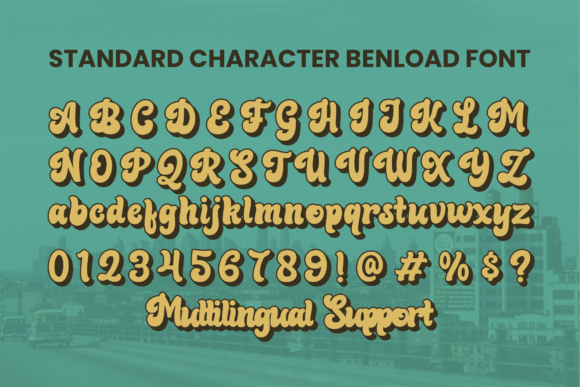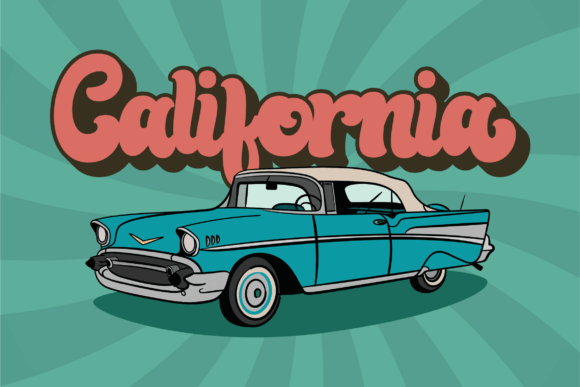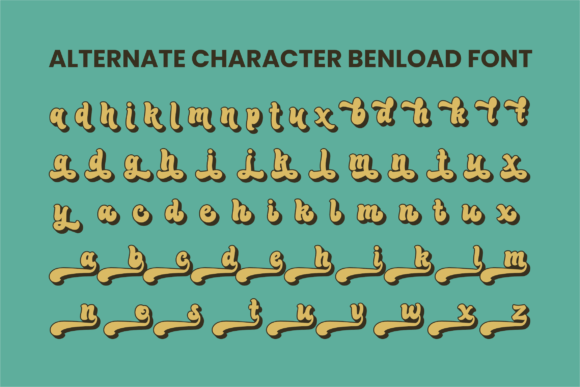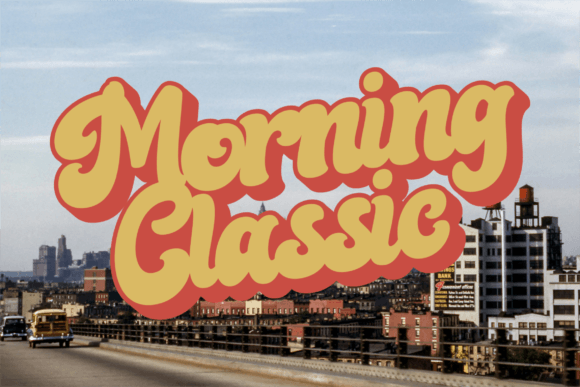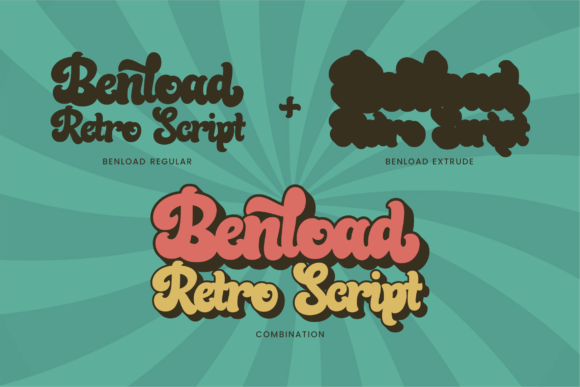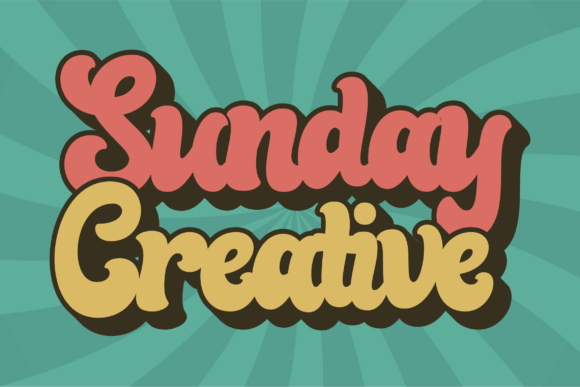
Introducing Benload Font: The Bold and Retro-Styled Addition to Your Design Arsenal
Are you tired of using the same old fonts in your designs? Do you want to add a touch of nostalgia and personality to your work? Look no further than Benload Font, a bold and retro-styled font that’s sure to take your designs to the next level. In this article, we’ll dive into the features and benefits of Benload Font, and explore how it can elevate your designs and impress your audience.
A Bold and Confident Font
Benload Font is a bold and confident font that’s perfect for designers who want to make a statement. Its strong and dynamic design reads well in a variety of contexts, from vintage-inspired posters to stickers, apparel, and social media posts. With Benload Font, you can add a touch of nostalgia and character to your designs, and create a lasting impression on your audience.
Retro-Styled Charm
Benload Font is a retro-styled font that’s inspired by the classic designs of the past. Its unique and charming design is sure to transport your audience back in time, and evoke a sense of nostalgia and wonder. Whether you’re creating a vintage-inspired poster, a sticker, or a social media post, Benload Font is the perfect choice.
One of the standout features of Benload Font is its PUA (Private Use Area) encoding. This means that you can access all of the glyphs and swashes with ease, and use them to create unique and eye-catching designs. With Benload Font, you can unlock a world of creative possibilities, and take your designs to new heights.
Benload Font is perfect for designers and crafters who want to add a touch of personality and nostalgia to their work. Whether you’re creating digital designs or handmade crafts, Benload Font is a versatile and easy-to-use font that’s sure to become a favorite. With its bold and confident design, Benload Font is perfect for a wide range of projects, from:
- Vintage-inspired posters and flyers
- Stickers and labels
- Apparel and accessories
- Handmade crafts and DIY projects
Why Choose Benload Font?
So why choose Benload Font over other fonts on the market? Here are just a few reasons:
- Unique and eye-catching design: Benload Font is a bold and retro-styled font that’s sure to stand out in a crowd.
- PUA encoded for easy access: With Benload Font, you can access all of the glyphs and swashes with ease, and use them to create unique and eye-catching designs.
- Perfect for designers and crafters: Benload Font is a versatile and easy-to-use font that’s perfect for a wide range of projects, from digital designs to handmade crafts.
- Adds a touch of nostalgia and character: Benload Font is a retro-styled font that’s sure to evoke a sense of nostalgia and wonder in your audience.
In conclusion, Benload Font is a bold and retro-styled font that’s perfect for designers and crafters who want to add a touch of personality and nostalgia to their work. With its unique and eye-catching design, PUA encoding, and versatility, Benload Font is a must-have font for any designer or crafter looking to take their work to the next level. So why wait? Download Benload Font today, and start creating stunning designs that will impress your audience!